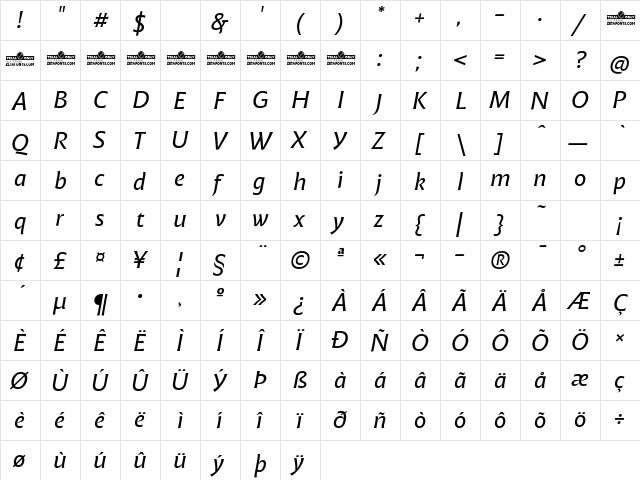
Malik Trial Italic
| Foundry | Zetafonts |
| Designer | Andrea Tartarelli |
Design Context for Malik Trial Typeface
Malik Trial offers clean, dependable letterforms without strong stylistic allegiance, making it a practical choice for designers who need flexibility. The slanted form adds forward momentum and visual energy.